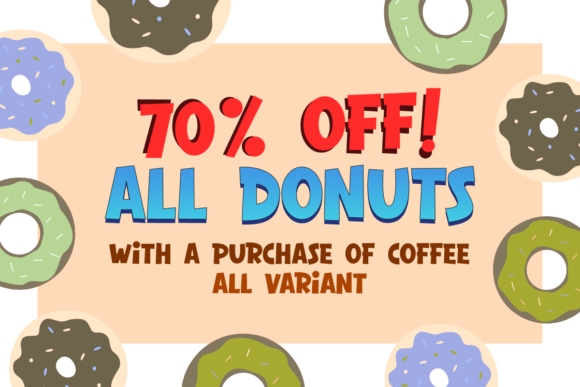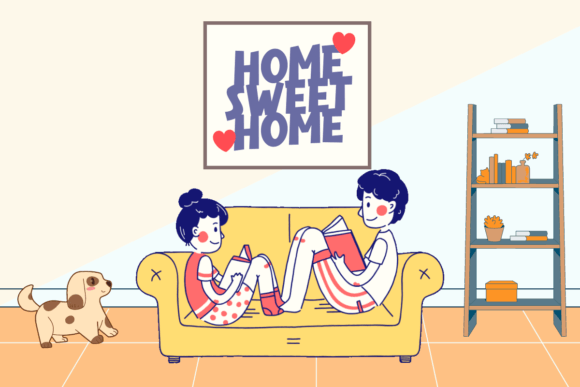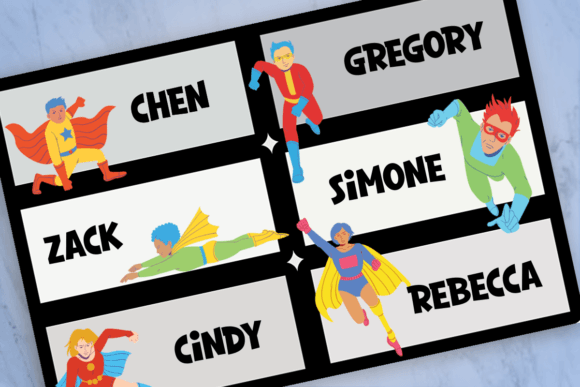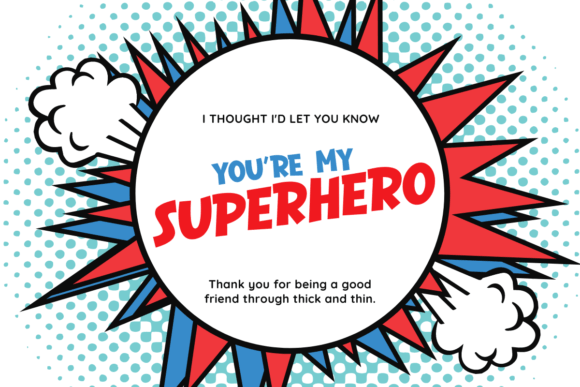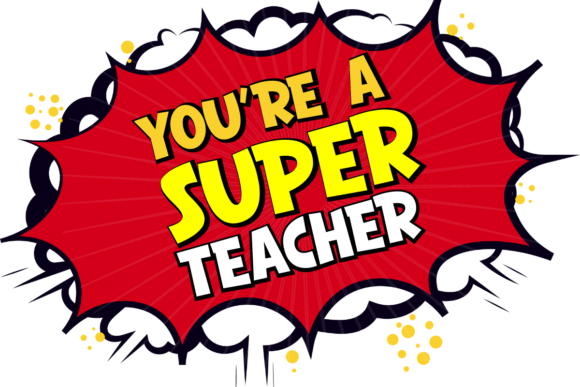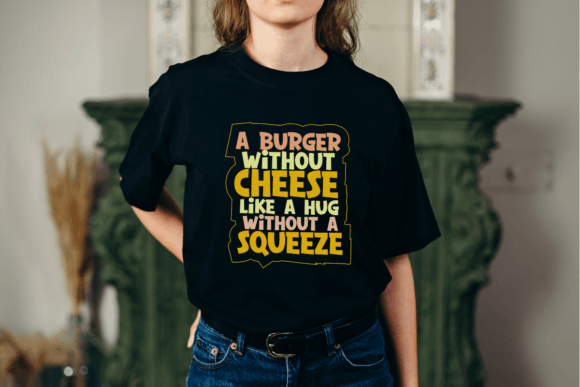
Introduction to Farel Comic Font
Farel Comic is a cool and cartoon-like display font.
It embodies playfulness and authenticity and is suitable for comic-themed designs .
Key Features of Farel Comic Font